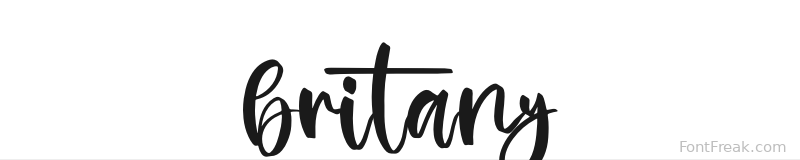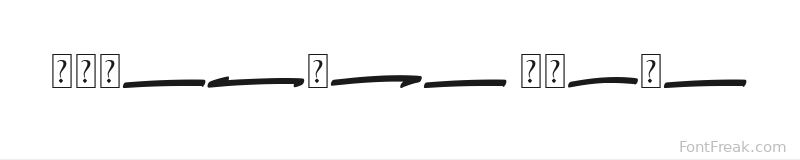
BushetchSwash
Bushetch Swash
Bushetch
BushetchSwash is a captivating display font crafted by Kong Font, showcasing a unique blend of whimsical and elegant design elements. This font falls under the decorative category, making it an ideal choice for projects that require a touch of creativity and flair. With its distinct swashes and playful curves, BushetchSwash draws attention while maintaining readability, making it perfect for various design applications.
Visually, BushetchSwash features a medium stroke weight with a moderate contrast, allowing it to stand out without overwhelming the viewer. The spacing is well-balanced, providing clarity and ensuring that each character flows seamlessly into the next. The decorative elements, particularly the exaggerated swashes, add a playful and artistic quality, making this font a standout choice for projects aimed at capturing attention.
This font is particularly well-suited for wedding invitations, where its elegance can enhance the romantic ambiance. It also shines on movie posters, providing a dramatic flair that can draw viewers in. Additionally, restaurant menus can benefit from its unique style, adding a touch of sophistication to the dining experience. Content creators looking to add character to their social media graphics will find BushetchSwash an excellent choice, infusing their posts with a fun and lively vibe.
In conclusion, BushetchSwash is a delightful font that stands out for its playful design and versatility. Its unique blend of creativity and elegance makes it a perfect choice for those seeking to make a memorable visual impact. Don’t miss out on the opportunity to enhance your designs with the BushetchSwash font free download.